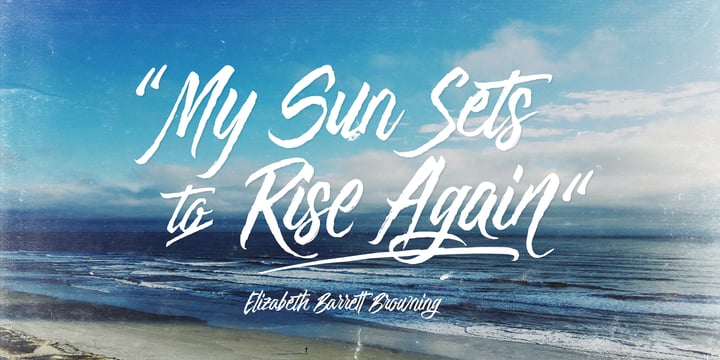
Goodfy
von Majestype
Die Schriftfamilie Goodfy wurde von Dexsar Harry Anugrah entworfen und von Majestype veröffentlicht. Goodfy enthält 2 Stile.
Goodfy is a quick brush typeface based on original lettering, using a brush pen. Goodfy is great for giving a fast and rush, handlettered feeling to your work. With over 300 glyphs, including swash variants, and other various OpenType extended features the font is giving you a lot a chance to make handlettering style in second. So, just wanna say let you creativity run fast like Goodfy!